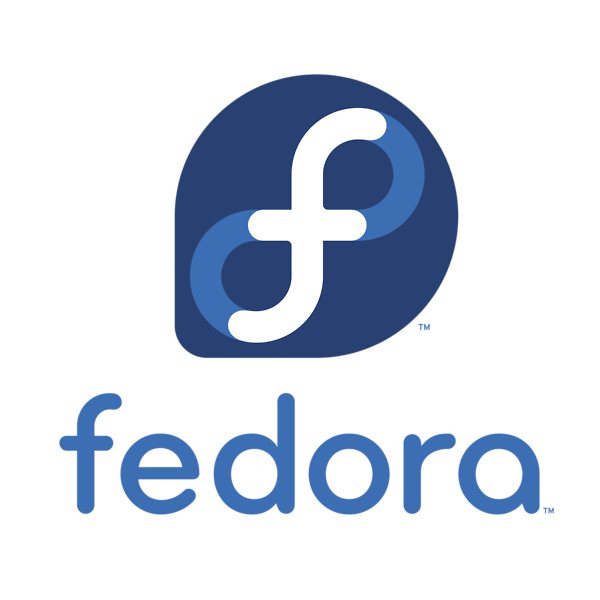
Fedora Font
Fonts in UseFedora is a popular Linux-based operating system known for its emphasis on open-source software and community-driven development.
The Fedora logo represents infinite innovation, openness, and freedom with an infinity sign, stylized "f" letter, and community concept. The logotype was designed with the commercial font Bryant Medium Alt by Eric Olson.